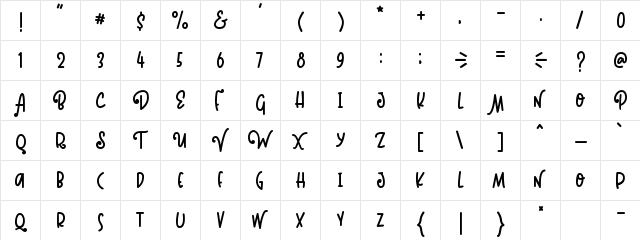
Kinglet Playful Regular
Design Context for Kinglet Playful Typeface
Kinglet Playful has an approachable, lighthearted character — its loose, expressive forms are well-suited to children's content, casual branding, and fun-first design.
Font Pairing: Pairs well with a rounded or humanist sans for body copy, maintaining the friendly tone without relying on Kinglet Playful to carry extended reading.
Pro Tip: Avoid using Kinglet Playful for long passages of text — it works best for headlines, labels, and short calls to action.